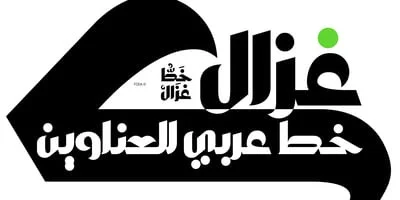
Ghazal Font
Ghazal Font is ideal for poetry books, cultural publications, wedding invitations, restaurant menus, book covers, artistic posters, greeting cards, social media posts, calligraphy projects, and luxury brand designs. This elegant typeface excels in projects that require a touch of sophistication and cultural richness.
What makes Ghazal Font exciting is its beautiful fusion of traditional calligraphic elements with contemporary design sensibilities. The font captures the essence of classical poetry and artistic expression through its flowing letterforms and graceful curves. Each character is meticulously crafted to evoke emotion and create visual harmony, making it perfect for projects that demand both aesthetic appeal and cultural authenticity.
Ghazal Font includes multiple font families such as Regular, Bold, Light, Italic, Condensed, and Decorative variants. Each family member preserves the distinctive character while offering different stylistic approaches to meet diverse design requirements and creative visions.
This exceptional typeface serves as an outstanding choice for designers who appreciate the beauty of traditional typography combined with modern functionality. Ghazal Font provides incredible value for creative professionals, poets, publishers, and cultural organizations seeking to enhance their visual storytelling. The font's artistic nature makes it particularly suitable for literary projects, cultural events, artistic exhibitions, and premium branding initiatives.
Whether you're designing a poetry collection, creating invitations for special occasions, or developing brand identity for luxury products, Ghazal Font brings elegance and cultural depth to every project with its timeless appeal.